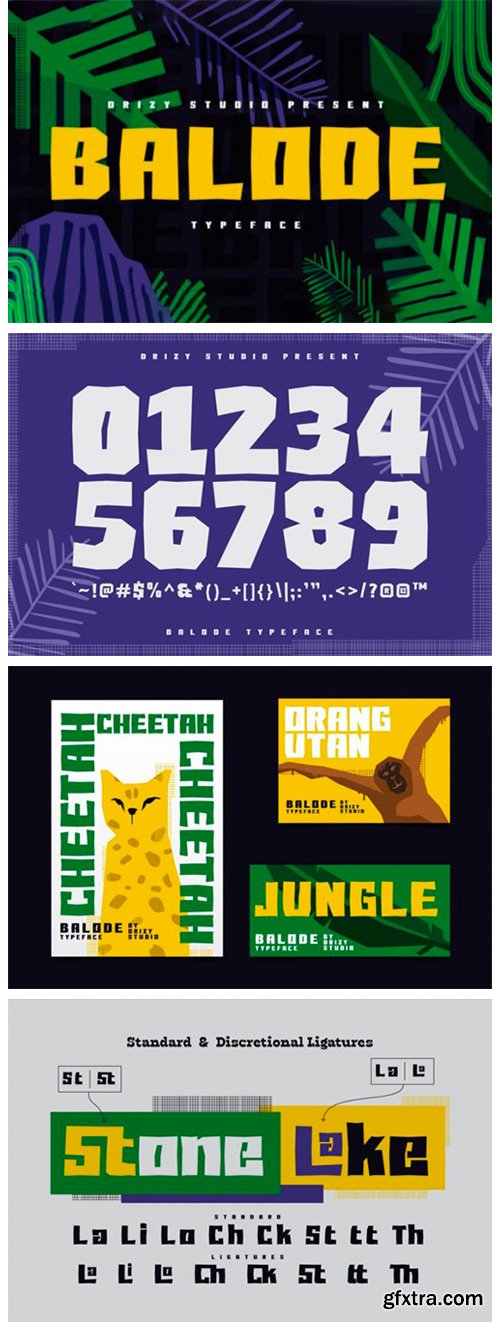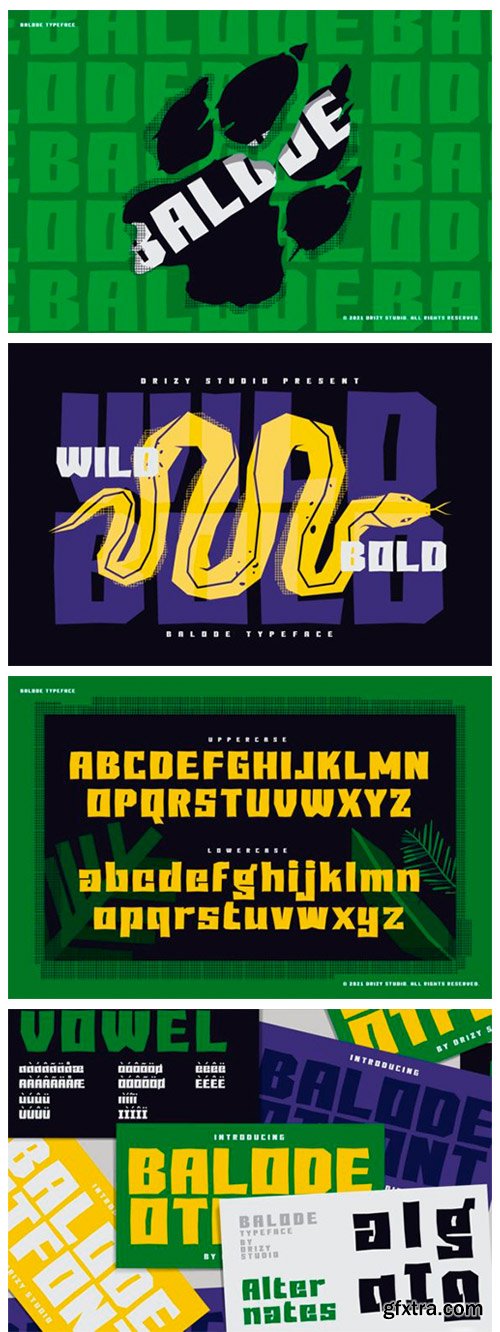
Balode Font
Balode is a thick lettered and bold display font. No matter the topic, this font will be an incredible asset to your fonts’ library, as it has the potential to elevate any creation.